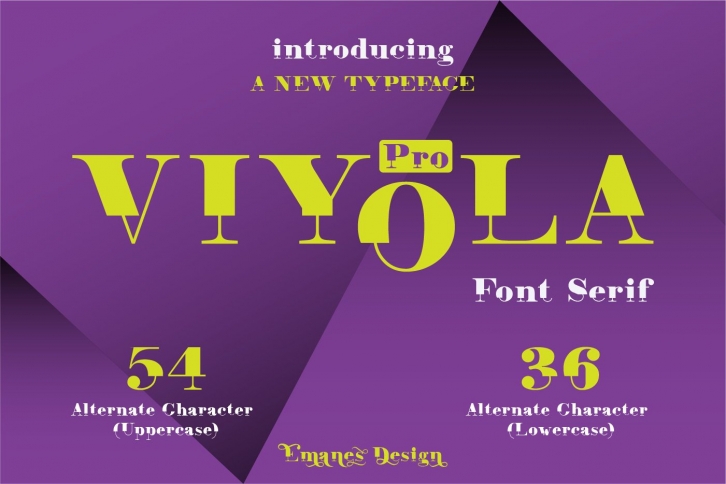
Viyola Pro is a great font that was designed by Grafontza. Imagine the amount of combinations you can create using this font! The archive is 10.54 MB and it was released on June 27, 2020. Viyola Pro looks beautiful on wedding invitations, greeting cards, logos, posters, labels, t-shirt designs, logos, business cards and is perfect for use in ink or watercolor works, fashion, magazines, packaging and food menus, children's books and more!